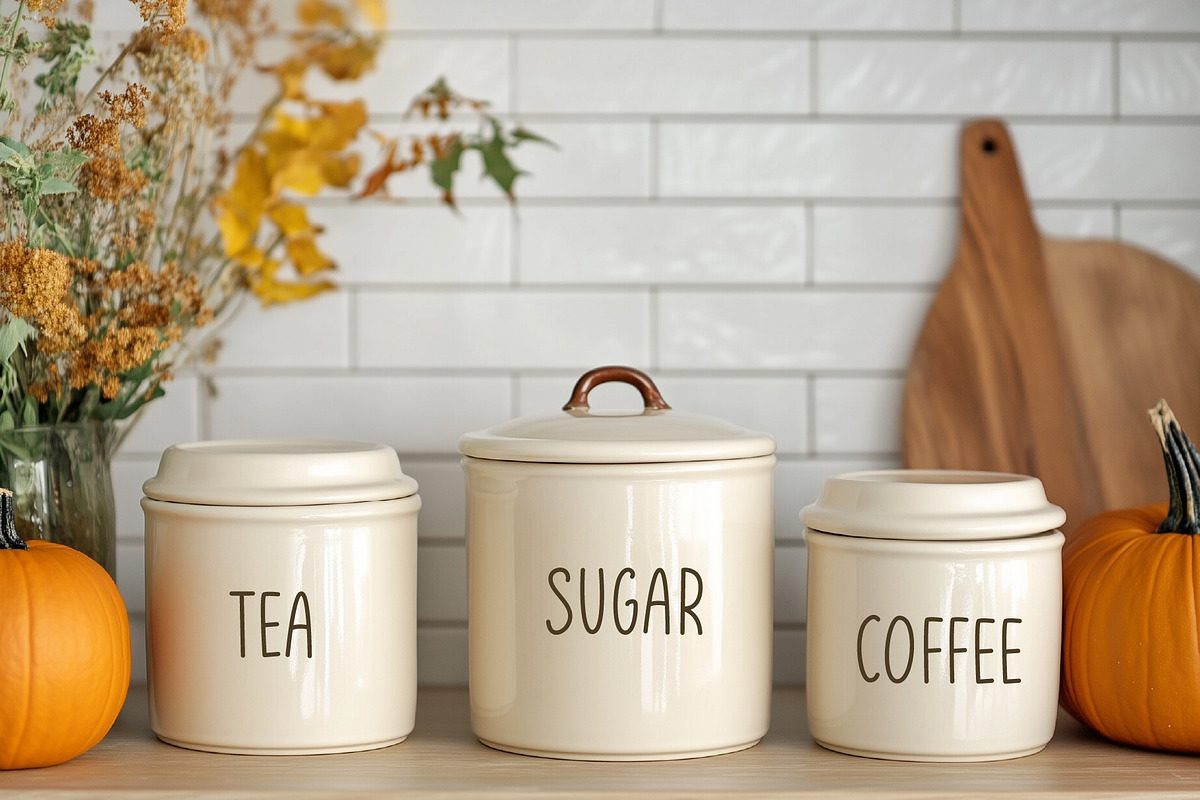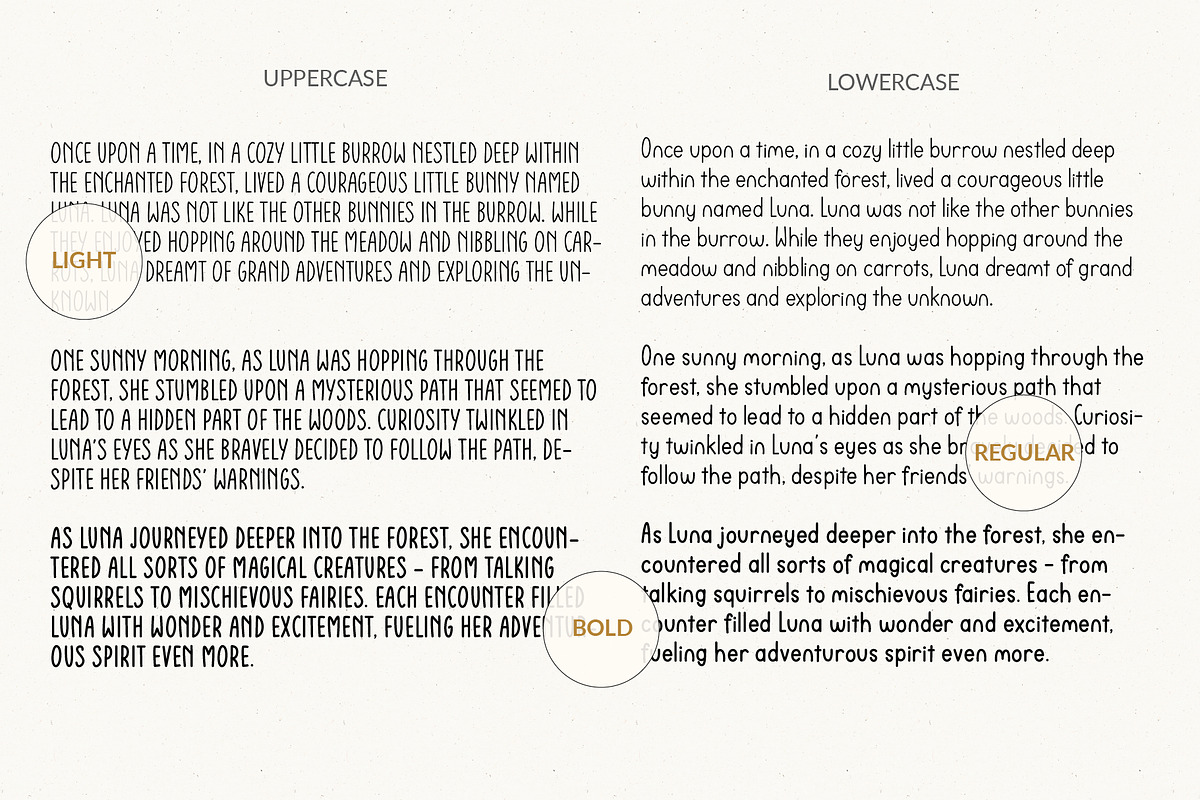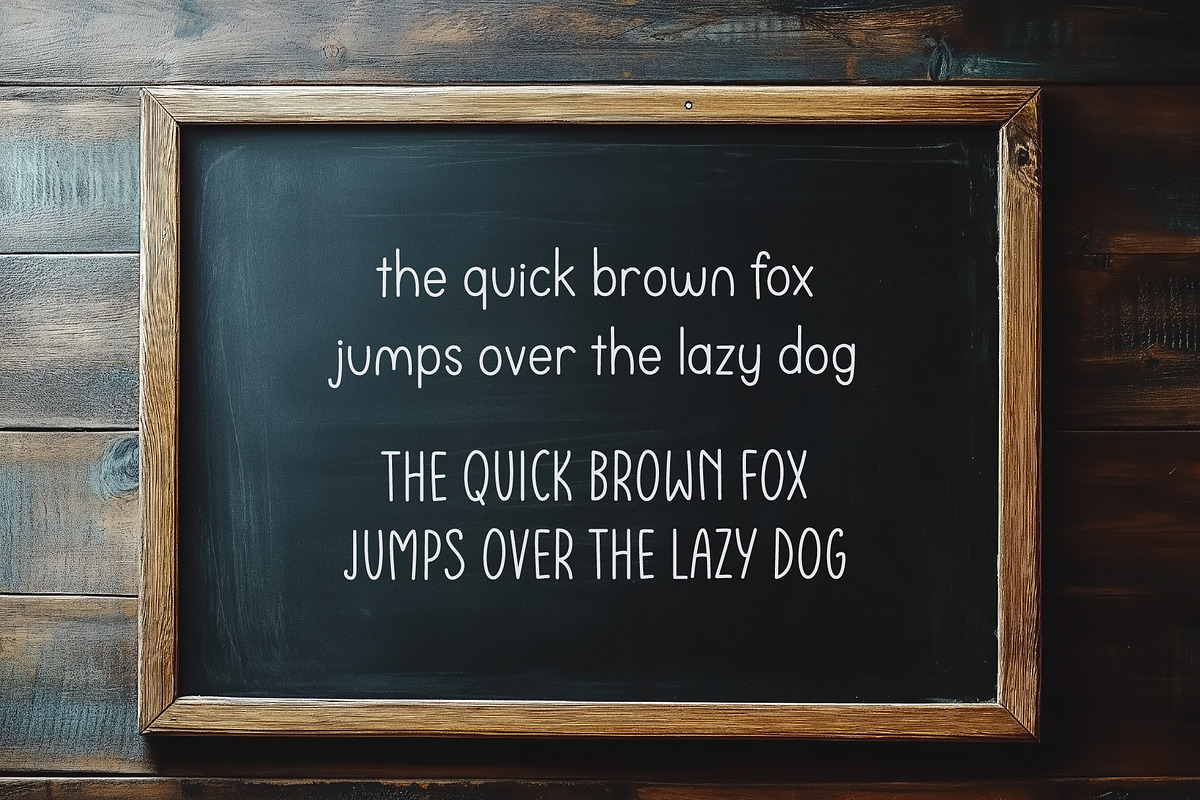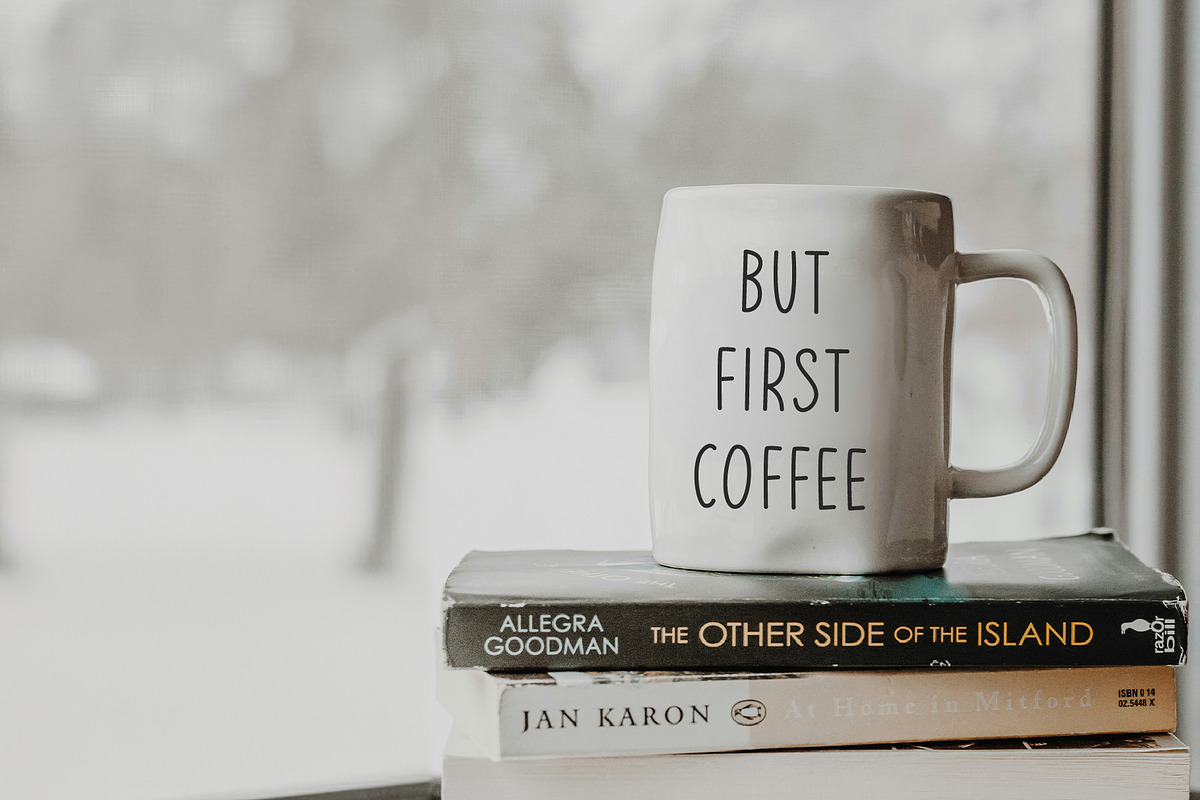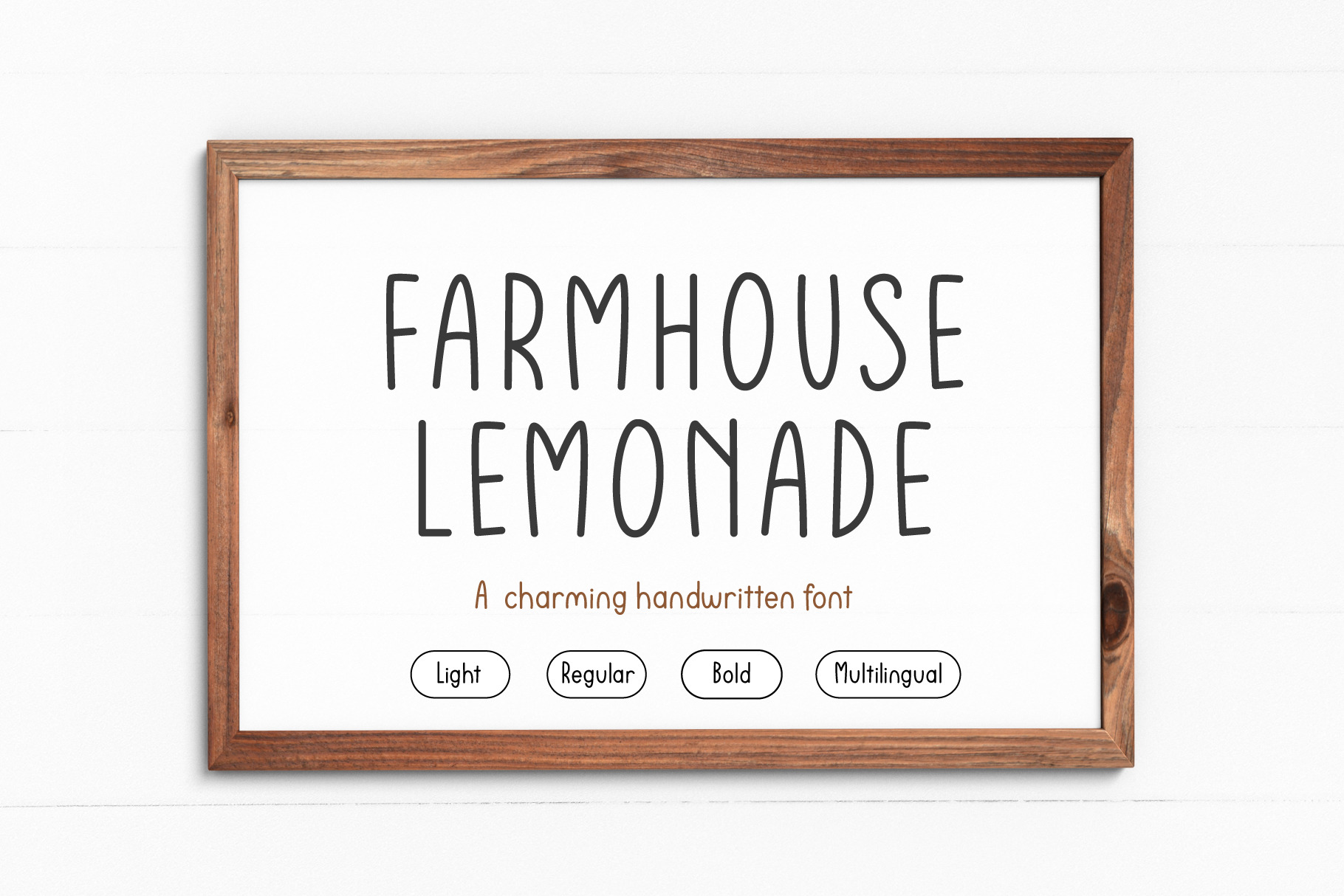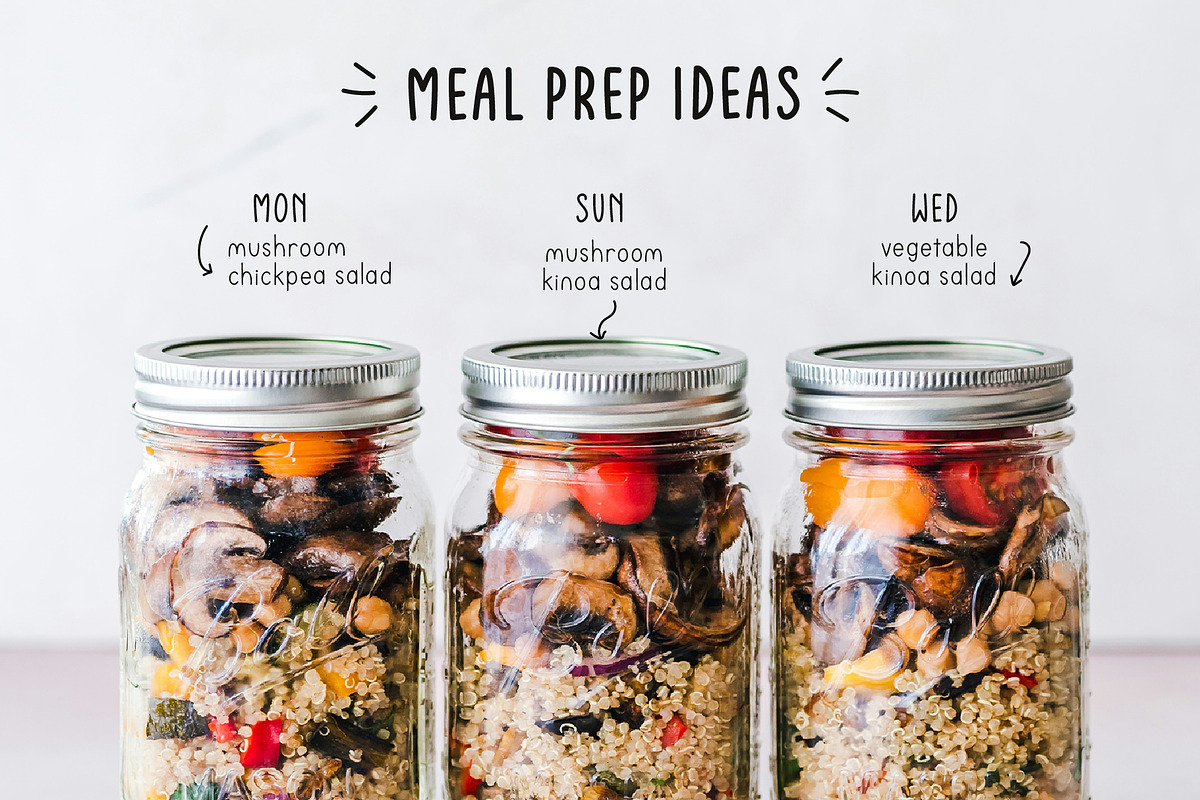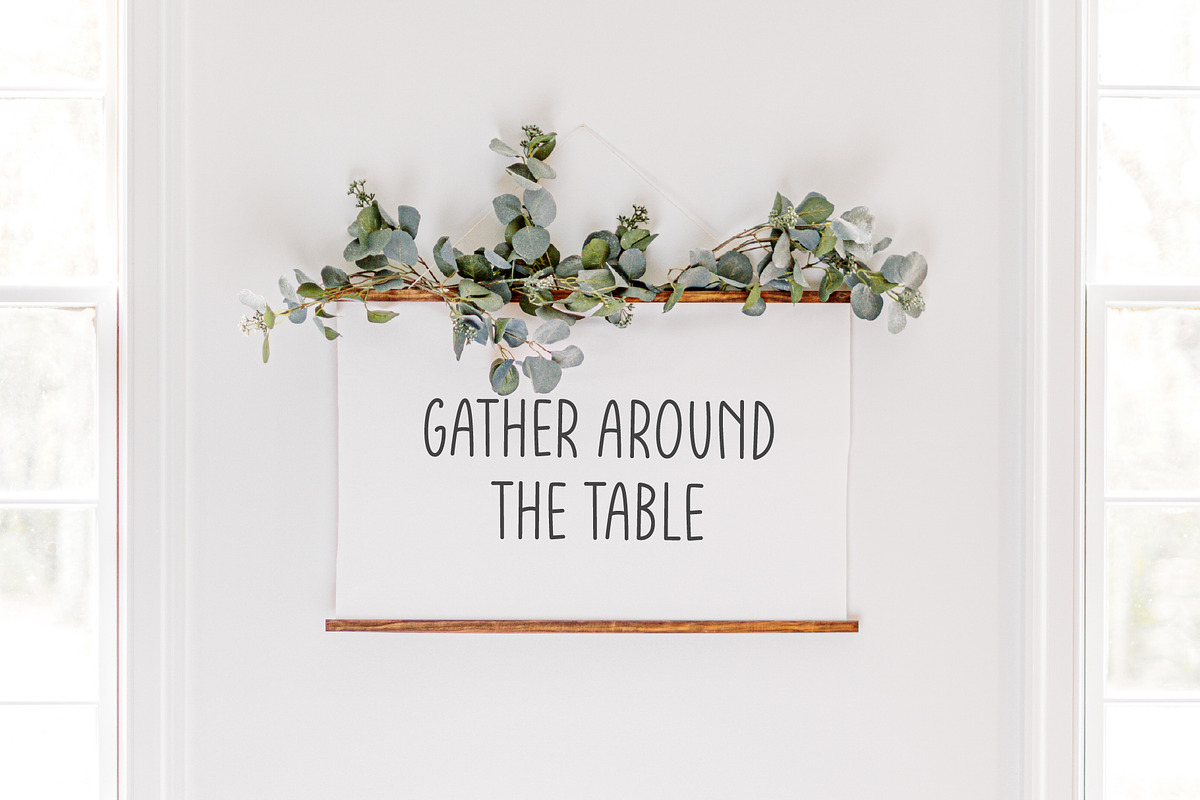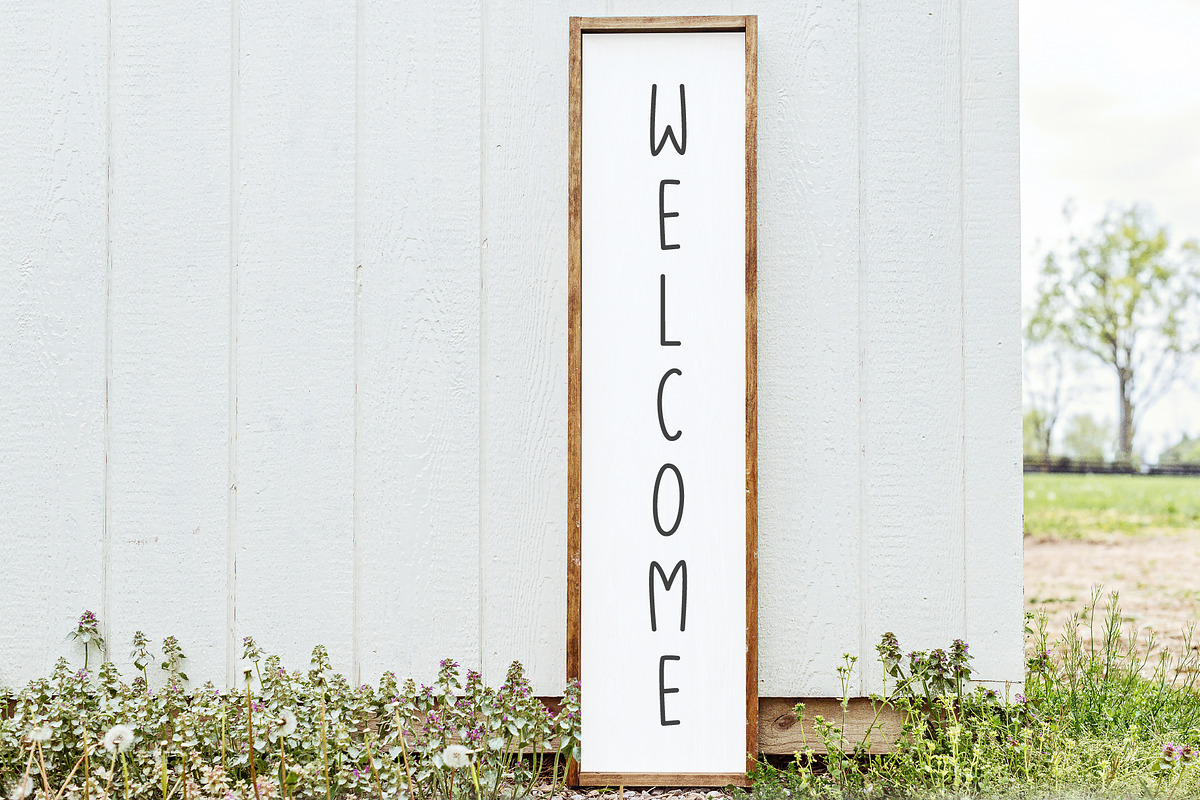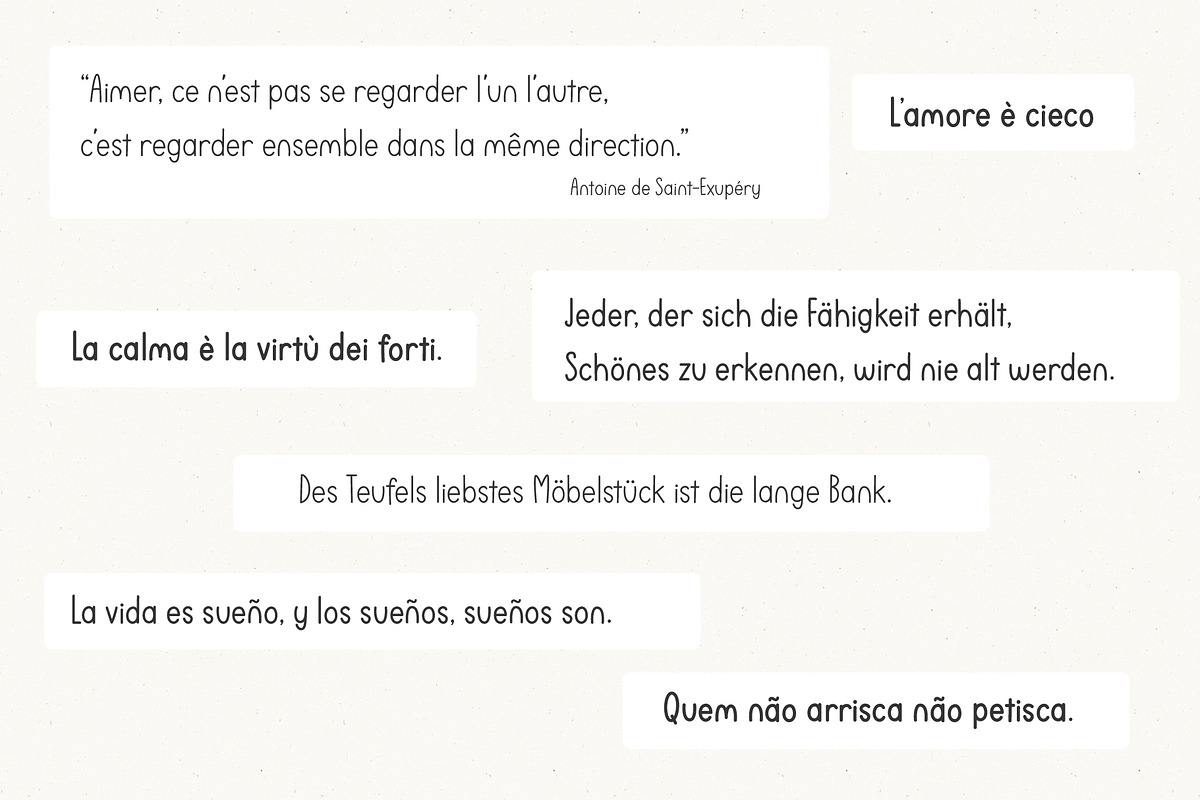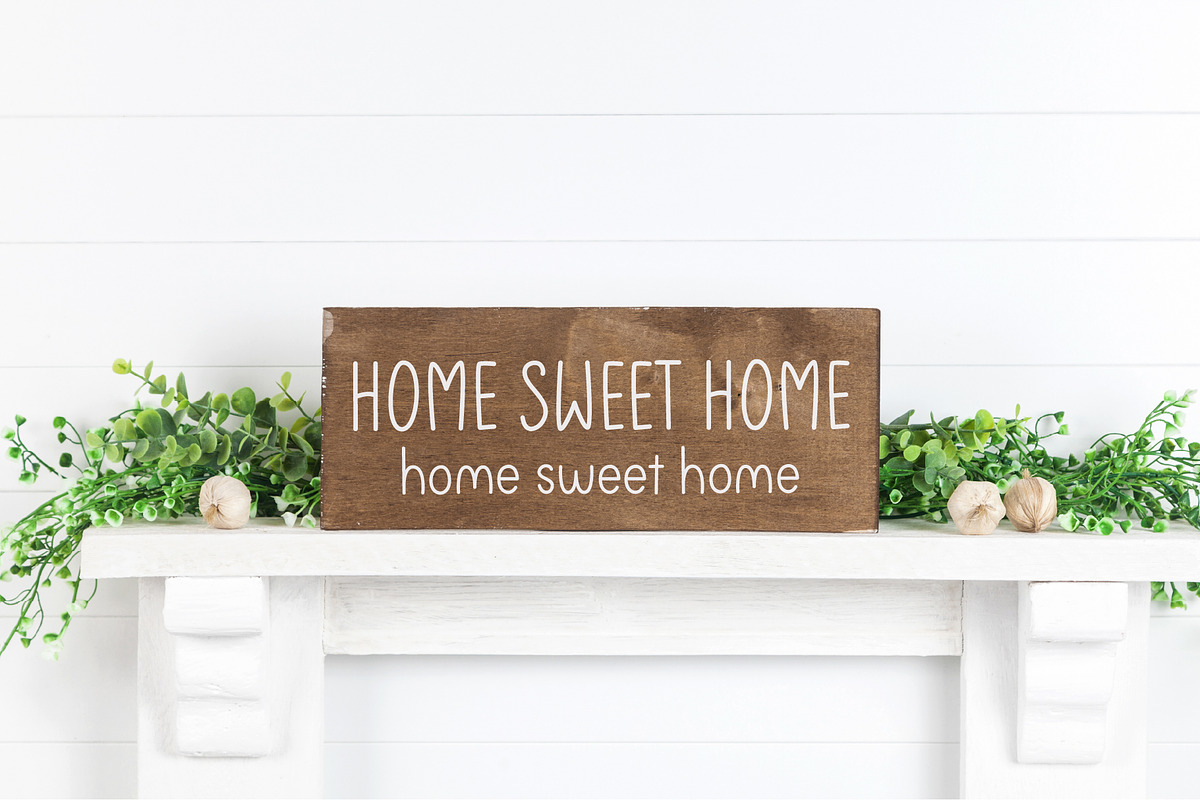
Farmhouse Lemonade, Tall Skinny Font
Farmhouse Lemonade is a charming and versatile typeface that evokes the warmth and simplicity of country living. This font family includes three weights: Light, Regular, Bold.
Farmhouse Lemonade is a go-to option for projects that want to combine a modern, clean look with a hint of old-fashioned charm.
Ideal for projects like sigs, posters, and branding, social media, quotes, invitations, greeting cards, DIY projects, home décor, labels, printed goods, digital planners and anything you can imagine.
FONT FEATURES:
Standard characters: lowercase, uppercase, numbers, punctuation, accent characters
Weights: Light, Regular, Bold
Accent Characters: Á À Ă Â Å Ä Ã Ą Ā Æ Ć Ĉ Č Ċ Ç Ď Þ Đ É È Ĕ Ê Ë Ę Ē Ě Ė Ğ Ĝ Ġ Ģ Ĥ Í Ì Ĭ Î Ï Ĩ Į Ī İ IJ Ĵ Ķ ĸ Ĺ Ľ Ļ Ł Ŀ Ń Ñ Ň Ņ Ŋ Ó Ò Ŏ Ô Ö Õ Ō Ő Ø Œ Ŕ Ř Ŗ Ś Ŝ Š Ş Ș ẞ Ť Ţ Ț Ŧ Ú Ù Ŭ Û Ů Ü Ũ Ų Ū Ű Ŵ Ý Ŷ Ÿ Ź Ž Ż
á à ă â å ä ã ą ā æ ć ĉ č ċ ç ď þ đ é è ĕ ê ë ę ē ě ė ğ ĝ ġ ģ ĥ í ì ĭ î ï ĩ į ī ı ij ĵ ķ ĺ ľ ļ ł ŀ ń ñ ň ņ ŋ ó ò ŏ ô ö õ ō ő ø œ ŕ ř ŗ ś ŝ š ş ș ß ť ţ ț ŧ ú ù ŭ û ü ů ũ ų ű ū ŵ ý ŷ ÿ ź ž ż
Supported Languages: English, Danish, Dutch, Estonian, Filipino, Finnish, French, Galician, German, Hungarian, Indonesian, Irish, Italian, Latvian, Lithuanian, Luxembourgish, Norwegian Bokmål, Norwegian Nynorsk, Polish, Portuguese, Romanian, Spanish, Swedish, Swiss German, Turkish